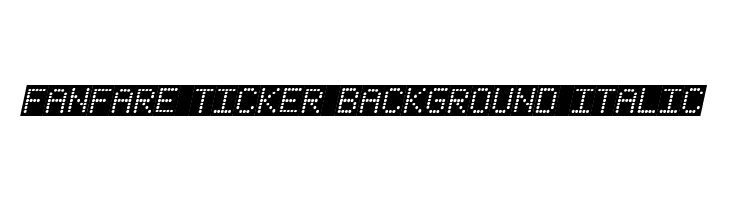
A dot matrix style font inspired by vintage LED displays.
A dot matrix style font with an italic slant, perfect for digital-themed designs.
A dot matrix style font with a semi-italicized, modern look.
( Matt Bruinooge )
A dot-matrix style font with a modern, tech-inspired aesthetic.
( Omer KOSE - www.omerkose.net )
A dot matrix font inspired by vintage LCD displays.
( Rafael Saldaña - ikarusmedia.deviantart.com/gallery/ https://www.dafont.com/es/dotgrid.font )
A dot matrix style font with a retro digital display appearance.
( TwoNineFive - Maximillian Limpo )
A dot matrix style font with a retro digital aesthetic.
( myname5749 )
A dot matrix style font inspired by vintage LCD displays.
( 010Bus )
A pixelated dot-matrix font with a digital, retro aesthetic.
( BRIDGEco - bridgeco.jp/ )
A dot matrix style font with a modern, digital aesthetic.